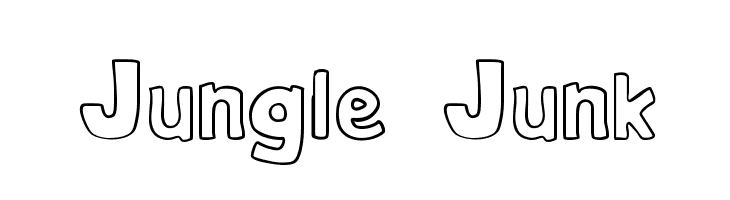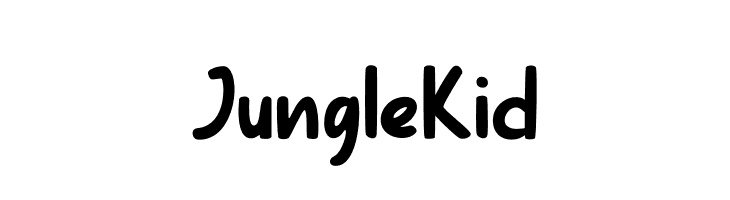
A playful, casual handwritten font with smooth, rounded strokes.
A bold, brush-style font with a hand-painted, energetic appearance.
A playful, bold font with rounded edges and a hand-drawn style.
A bold, graffiti-inspired font with sharp angles and dynamic movement.
A playful, handwritten font with bold, rounded strokes and a lively style.
A bold, playful script font with a hand-drawn, whimsical style.
A bold, playful font with dynamic and slightly irregular letterforms.